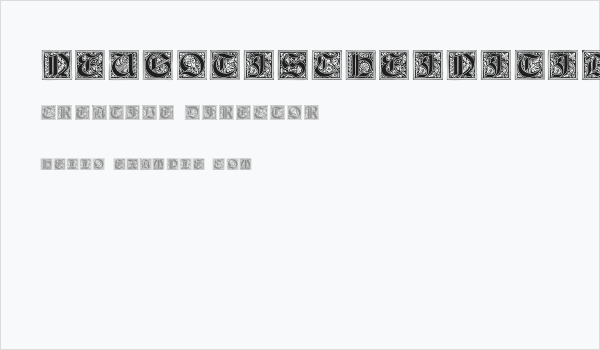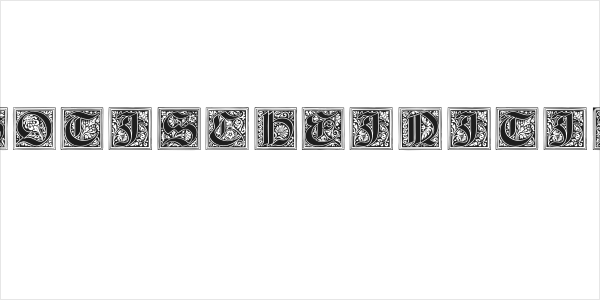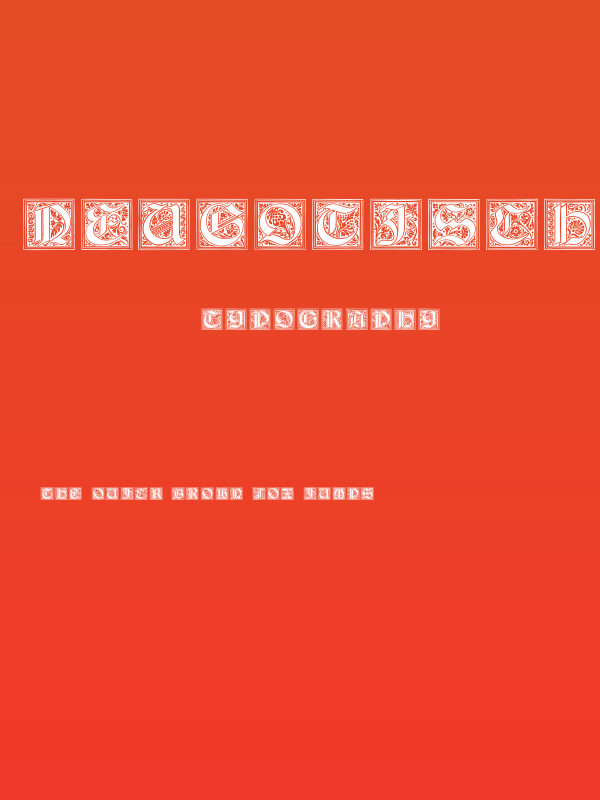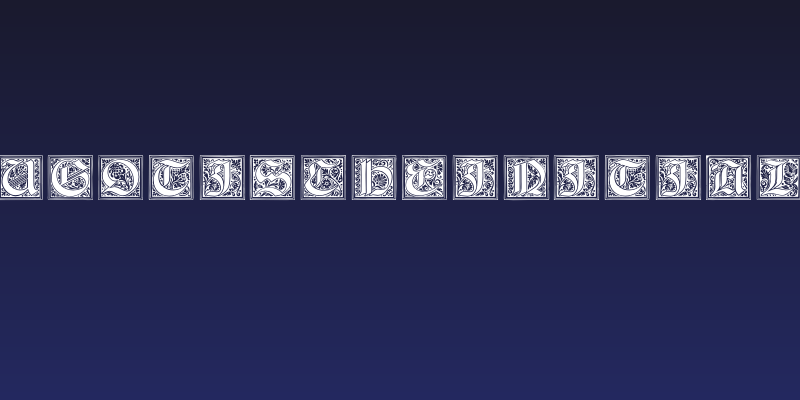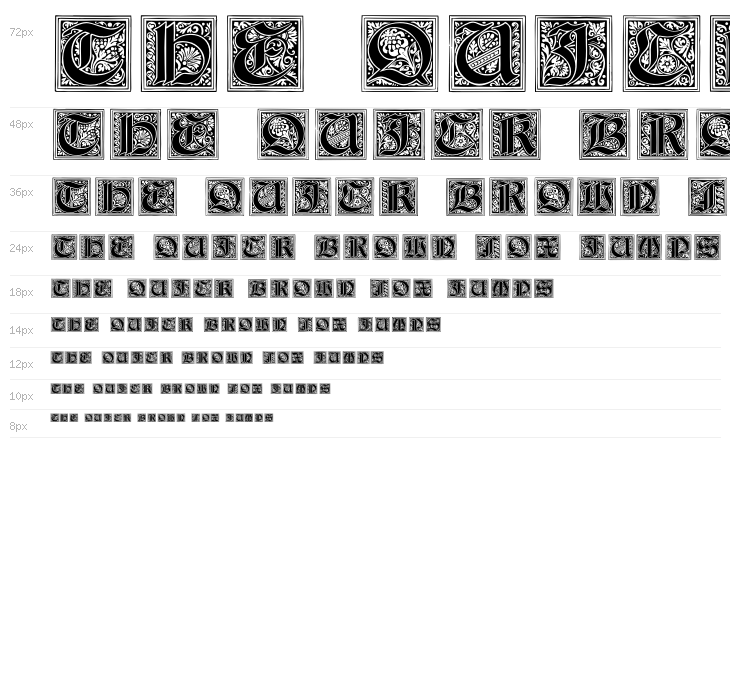
NeugotischeInitialen Font
NeugotischeInitialen Description
This font features ornate, decorative initials with a distinctly Gothic style. Each letter is enclosed within a square frame, adorned with intricate floral and vine motifs. The characters exhibit a high level of detail, with elaborate embellishments that give them a rich, historical appearance. The design is reminiscent of medieval manuscripts, offering a sense of grandeur and elegance. The bold strokes and complex patterns make it suitable for decorative purposes, where a touch of sophistication and antiquity is desired.
| Use Case | Logos, Decorative headings, Invitations |
| Proposed Projects | Ideal for use in historical or fantasy-themed projects, book covers, invitations, or any design requiring a medieval or classical touch. |